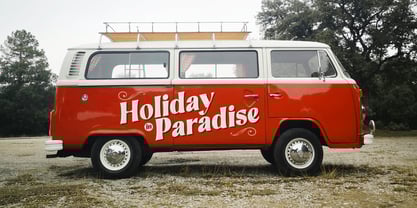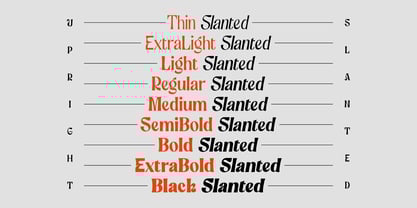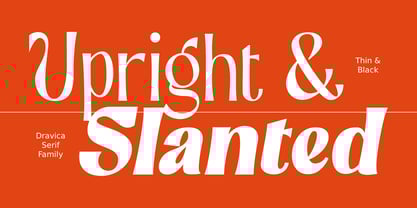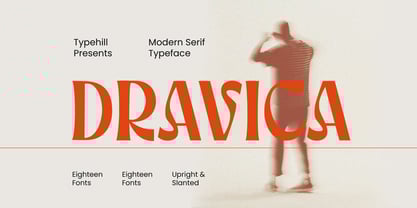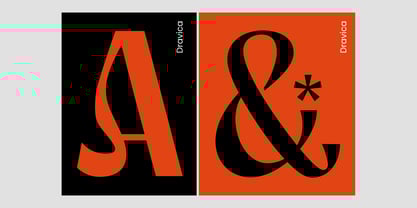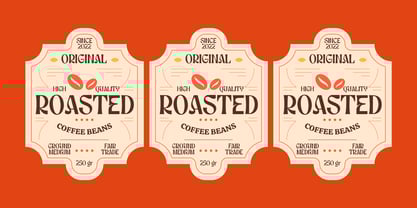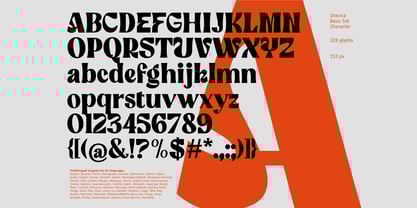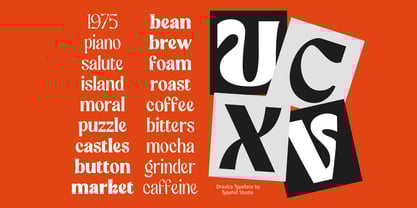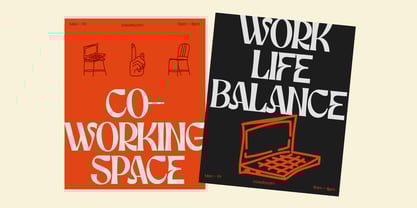
Dravica
by Typehill Studio
The Dravica Font Family was designed by Teuku Fahruddin and published by Typehill Studio. Dravica contains 19 styles and family package options.
Dravica is a modern serif typeface that blends classical elegance with contemporary energy. Its high contrast between thick and thin strokes, paired with sharp angled cuts and smooth curves, creates a distinctive rhythm and a refined sense of movement. Every detail is crafted to balance bold structure with graceful flow. Featuring eighteen styles — in both upright and slanted versions — Dravica offers wide versatility for display use, from editorial titles and branding to expressive visual identities. The slanted styles introduce an extra layer of dynamism, perfect for projects that demand sophistication with a modern edge. With its strong personality and stylish tone, Dravica stands as a statement serif for designers who seek to merge tradition with innovation, precision with emotion. Tagline: Bold elegance meets contemporary rhythm.
Designers: Teuku Fahruddin
Publisher: Typehill Studio
Foundry: Typehill Studio
Design Owner: Typehill Studio